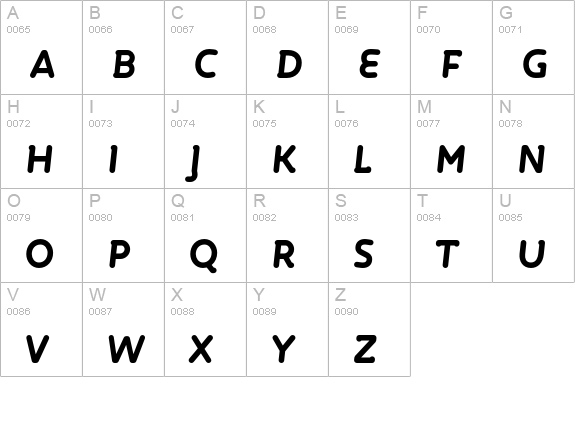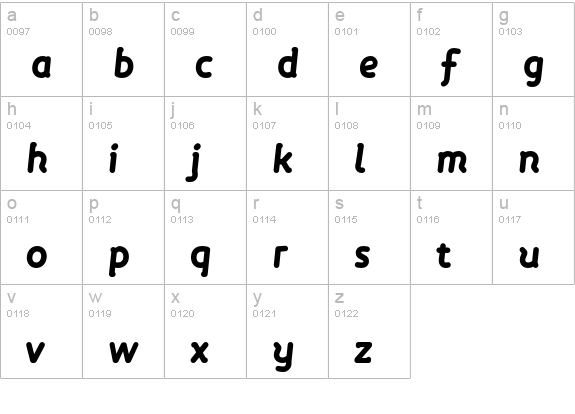
Roice-BlackItalic is a stylish and sophisticated font that exudes elegance and modernity. Its sleek and bold appearance makes it perfect for adding a touch of sophistication to any design project. The italicized form of the font adds a unique flair, making it stand out from the crowd. Best of all, Roice-BlackItalic is available for free! You can easily download this stunning font at FontsMarket.com and start using it in your projects right away. Whether you're designing a logo, creating a poster, or crafting a stylish website, Roice-BlackItalic is sure to make a statement and elevate your design to the next level. Don't miss out on this amazing opportunity to add a touch of class to your projects with this beautiful font.